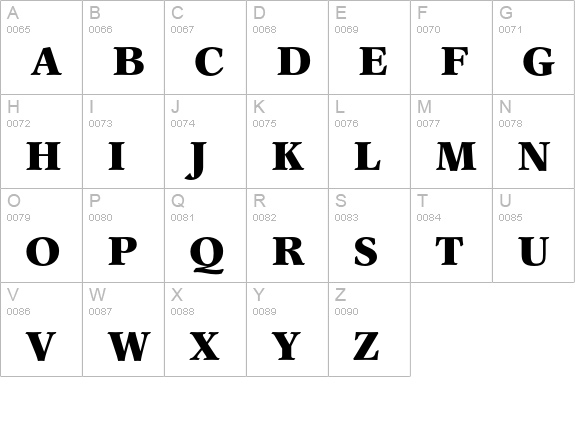
Garth Graphic Black Font Details
Garth Graphic Black is a maximum-weight, dramatic variant in the Garth typeface family \xE2\x80\x94 well suited to maximum-impact headlines, posters, and packaging.
Garth Graphic Black is a bold and impactful font that exudes strength and modernity. With its sharp angles and clean lines, this typeface is perfect for making a strong visual statement in any design project. Whether you're creating posters, logos, or branding materials, Garth Graphic Black will help you stand out from the crowd. The best part? Garth Graphic Black is available for free download at FontsMarket.com. This means you can easily access this stylish font and use it in your projects without any cost. So why wait? Elevate your designs with Garth Graphic Black today!